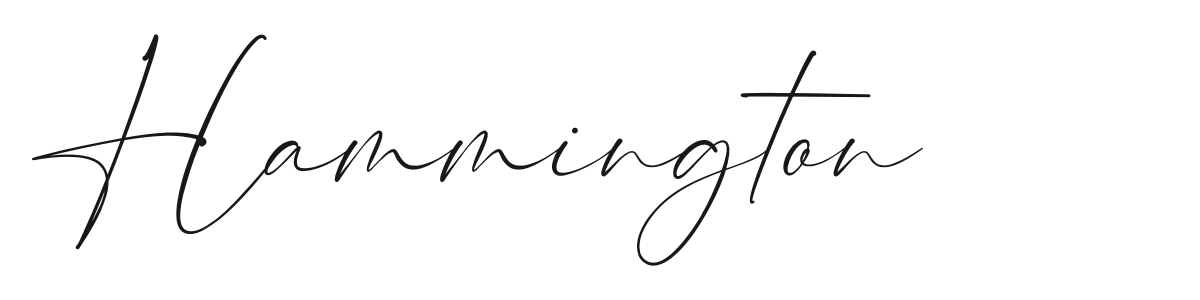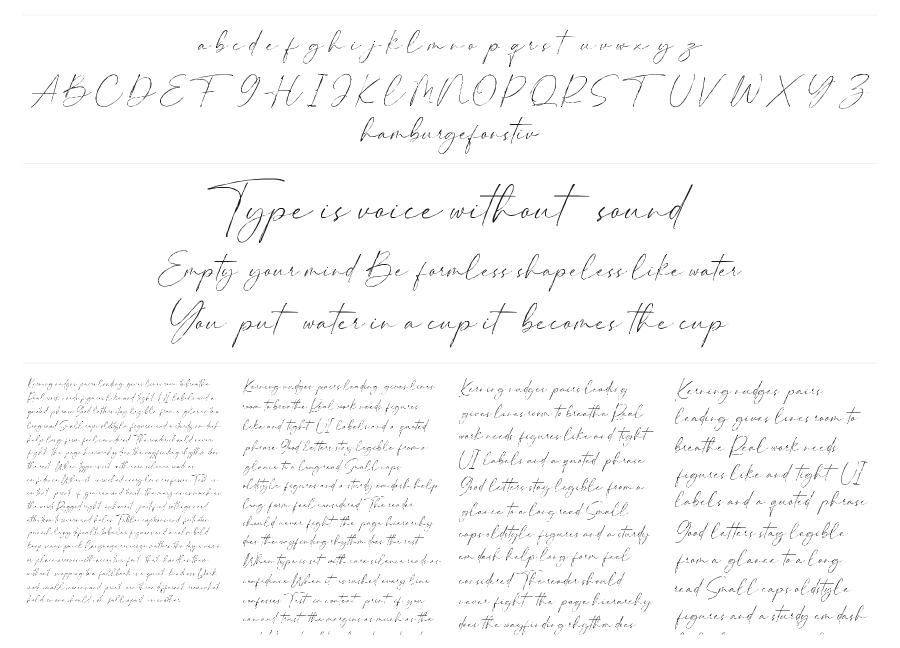
Hammington
Hammington is a casual signature script with long, sweeping strokes and an almost hairline weight that gives it a light, breezy feel. The loose connections between letters and generous flourishes evoke modern hand-lettering with a romantic edge. It thrives in wedding stationery, beauty branding, and anywhere a handcrafted, personal touch is needed.